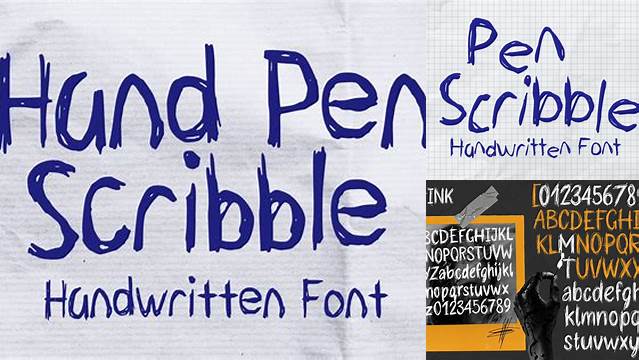
Pen Scribble Font Free: Your Guide To Awesome Handwritten Fonts
Hey guys, if you're looking to add a touch of authenticity and personality to your designs, you've stumbled upon the right place! We're diving deep into the world of pen scribble fonts, those cool, handwritten fonts that mimic the look of ink on paper. And the best part? I'm going to show you how to find these awesome fonts for free. Let's face it, nothing beats a good, handwritten font when you want to create a feeling of warmth, approachability, or a bit of that artistic flair. Forget those boring, cookie-cutter typefaces; it's time to infuse your projects with the unique character of a pen-drawn scribble. Whether you're a graphic designer, a blogger, or just someone who loves playing around with fonts, this guide is your ticket to discovering the best free pen scribble fonts out there. Get ready to level up your design game with some seriously cool typography!
What Makes a Pen Scribble Font Special?
So, what's the deal with pen scribble fonts, and why should you care? Well, these fonts are all about capturing the essence of hand-drawn lettering. Think about it: the slight imperfections, the variations in line weight, the way the ink sometimes bleeds or splatters – that's the magic of a pen scribble font! It's these little details that give these fonts their charm and make them so appealing. Unlike clean, digital fonts, pen scribble fonts have a human touch. They bring a sense of personality and individuality that's hard to replicate with other typefaces. They're perfect for projects where you want to convey a sense of creativity, playfulness, or a more informal, friendly vibe. Imagine using them for: invitations, logos, social media graphics, quotes, or even personal notes. The possibilities are endless! The beauty of a well-chosen pen scribble font lies in its ability to instantly grab attention and evoke an emotional response. They're like a visual handshake, instantly connecting with your audience on a more personal level. These fonts also add a layer of visual interest and texture to your designs, making them more dynamic and engaging. Think of it as adding a dash of art to your digital canvas. Plus, using these fonts can really help your work stand out. In a world dominated by sleek, modern designs, a pen scribble font can be a breath of fresh air, offering a unique and eye-catching aesthetic. And let's not forget the nostalgic factor! These fonts can remind us of simpler times, handwritten letters, and the joy of creating with pen and paper. They're a great way to tap into that feeling of warmth and nostalgia, making your designs feel more relatable and authentic. They are not just fonts; they are little pieces of art, each with its own story to tell. By incorporating them into your designs, you're adding a layer of personality and uniqueness that's hard to achieve with other types of fonts.
Where to Find Free Pen Scribble Fonts
Tips for Choosing the Right Pen Scribble Font
Choosing the perfect pen scribble font can feel overwhelming with so many options. Here are some tips to help you make the right choice for your project:
- Consider the Tone: First, think about the overall tone of your design. Do you want a playful, casual look? A more elegant or artistic feel? The font you choose should match the mood you're trying to create. A thick, bold scribble might work well for a fun, informal project, while a thinner, more refined pen stroke could be ideal for something more sophisticated. Make sure that the font complements the overall message and feel of your design.
- Readability is Key: While the aesthetic is important, don't sacrifice readability. Make sure your chosen font is easy to read, especially for longer pieces of text. Avoid fonts that are overly intricate or difficult to decipher. Experiment with the font size and spacing to ensure that your text is easily accessible. You want your audience to enjoy reading your message without straining their eyes.